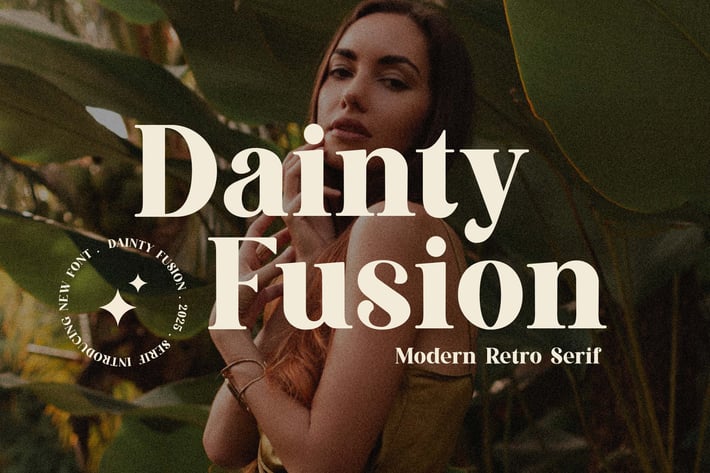
Dainty Fusion Modern Retro Serif Font
Introducing our new product the name is Dainty Fusion Modern Retro Serif Font. Dainty Fusion Modern Retro Serif Font that feels beautiful classy, elegant, and modern. This font is perfectly suited for a wide variety of projects, such as signature, stationery, logo, wedding, typography quotes, magazine or book covers, website headers, clothing, branding, packaging design, and more. Also, fashion-related branding or editorial design displays both masculine and feminine qualities.